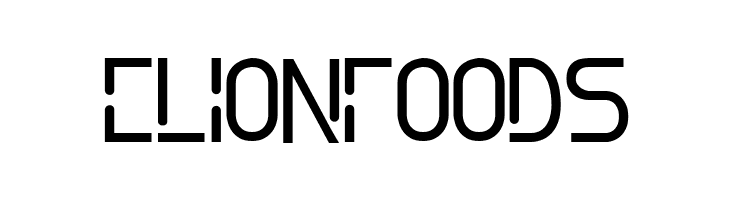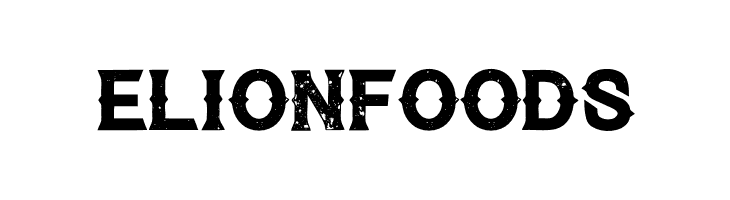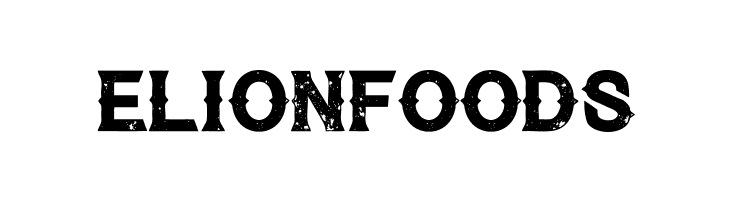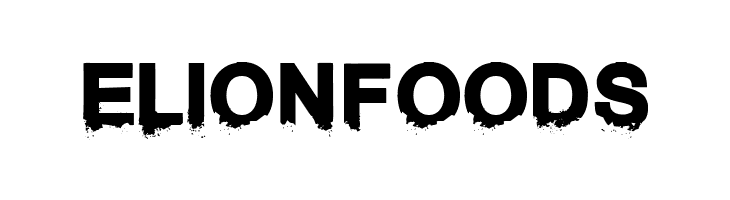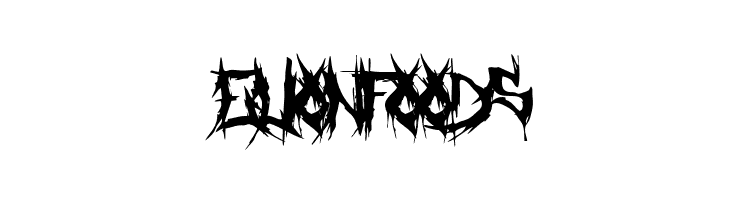
A modern, geometric font with bold, clean lines and uniform thickness.
A bold, jagged font with a dripping effect, perfect for dramatic and intense designs.
A bold slab serif font with a western-inspired, geometric design.
A bold, distressed font with a grunge effect, perfect for impactful designs.
An aggressive, edgy font with sharp, jagged edges and a chaotic, rebellious style.
A jagged, thorn-like font with an aggressive and rebellious style.
A bold, jagged font with sharp edges and an aggressive, chaotic style.
A bold, dripping font ideal for horror or thriller themes.